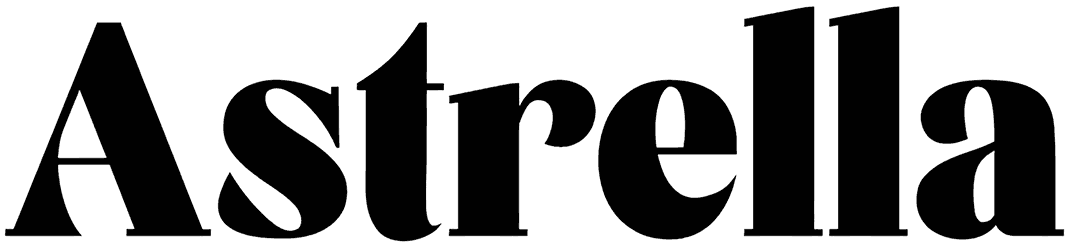
Astrella Font
If you are in the mood to boost the quality of your artwork by adding a sense of jauntiness, exotic, vintage, or eerie, then we would like to advise you to pick up a magical bold font the same to the Astrella. This masterpiece can be perfectly matched with all of your artistic products, like stationery, video game brochures, flyers, social media posts, or applications.